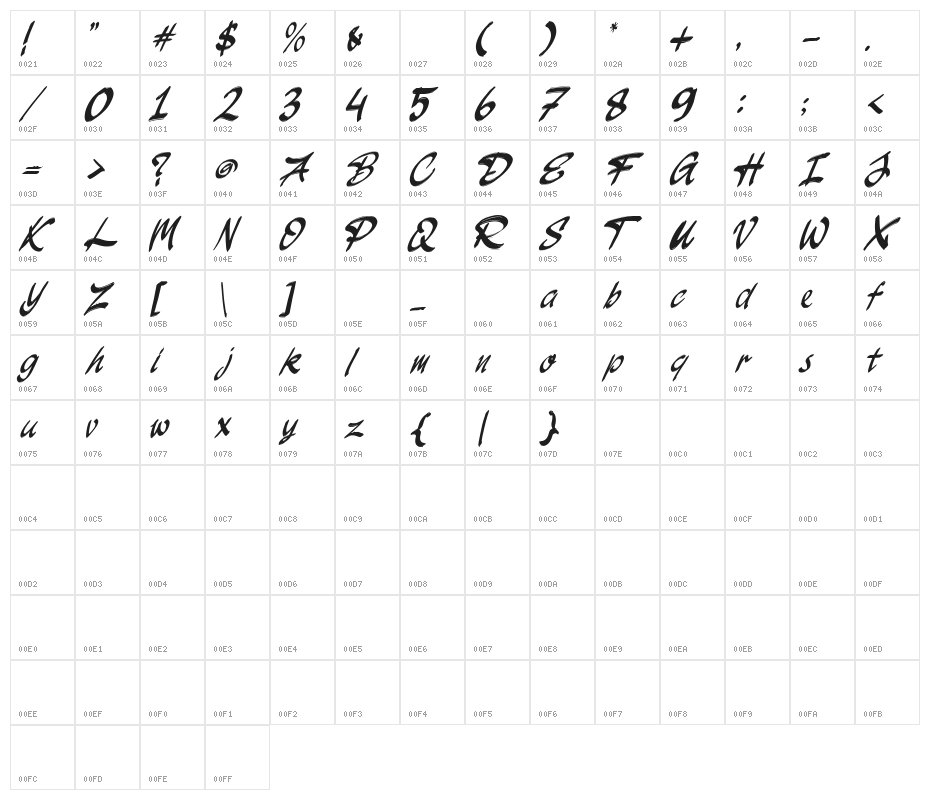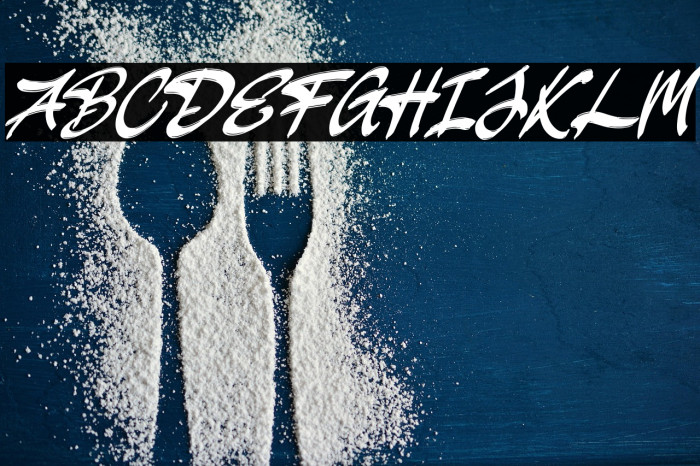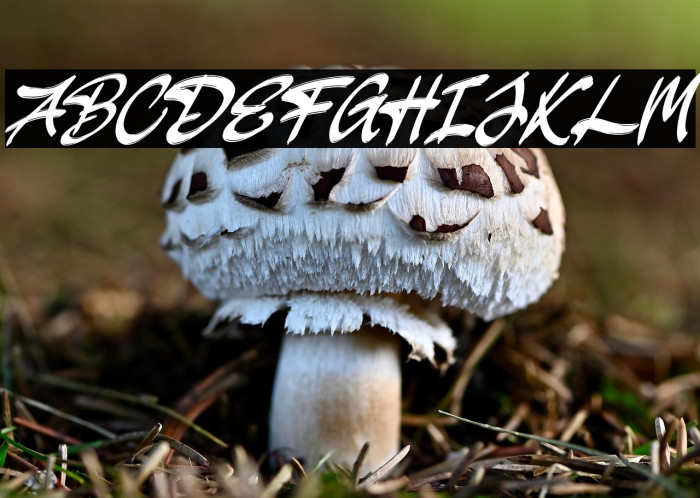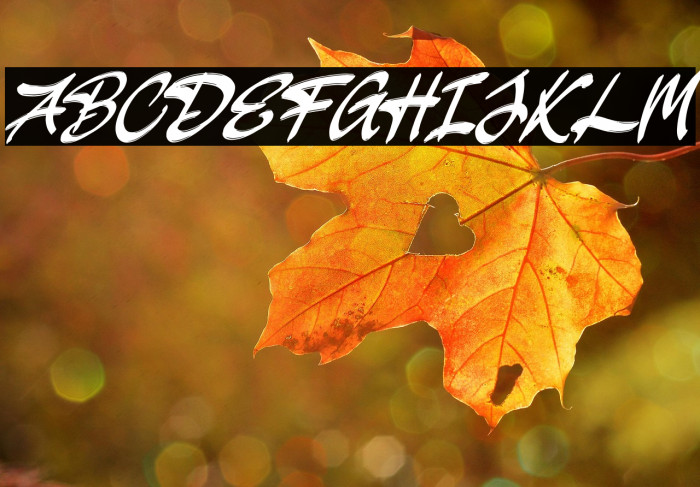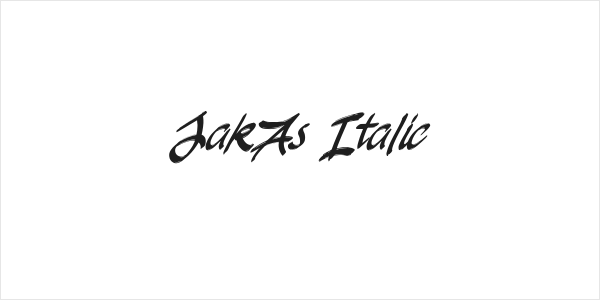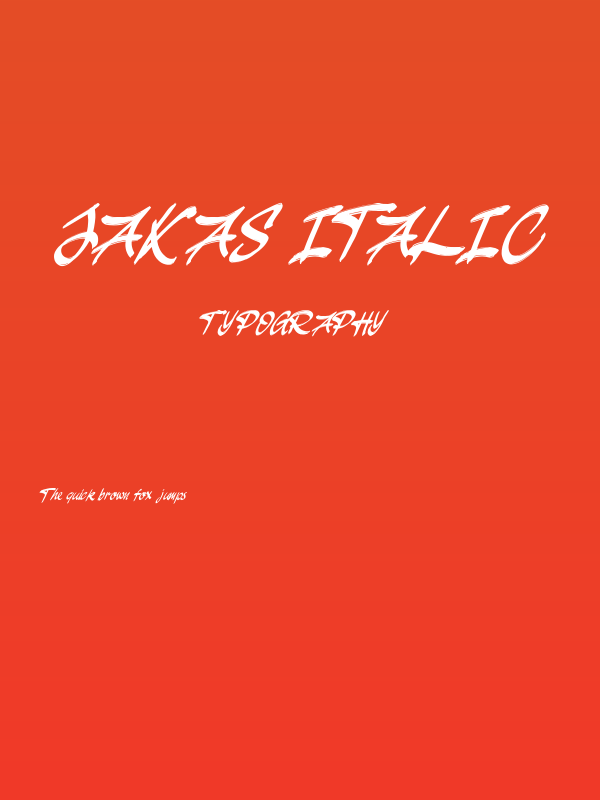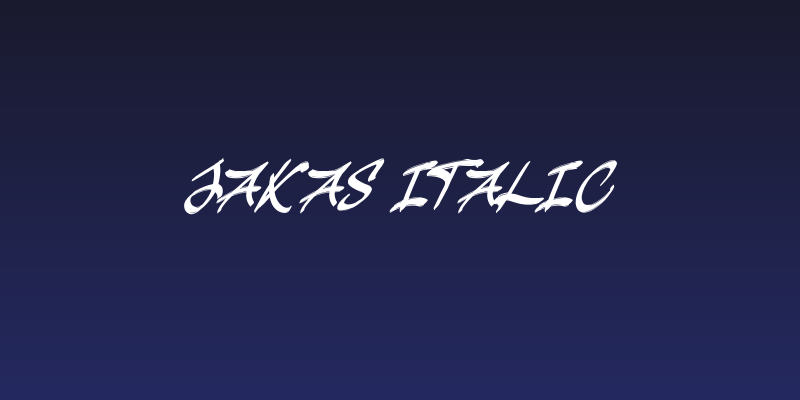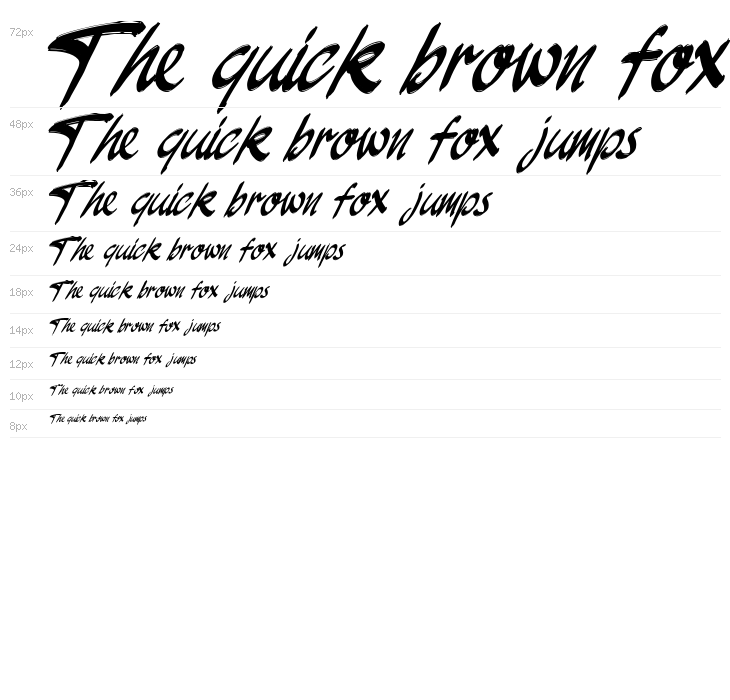
JakAs Italic Font
JakAs Italic Description
This font features a dynamic and expressive style, characterized by its bold, italicized script. The letters are fluid and connected, giving a sense of motion and elegance. The uppercase letters are particularly striking, with dramatic flourishes and a strong presence. The lowercase letters maintain the same fluidity, creating a cohesive look. Numbers and special characters are designed to match the overall style, with similar bold strokes and slanted forms. This font is ideal for projects that require a touch of sophistication and flair.